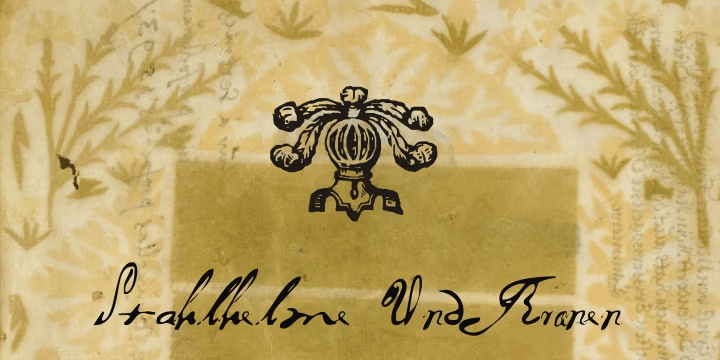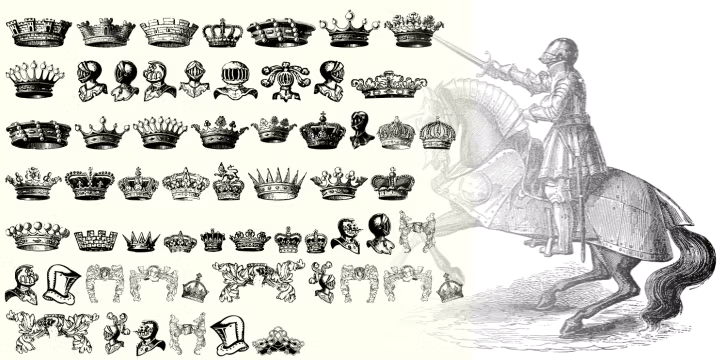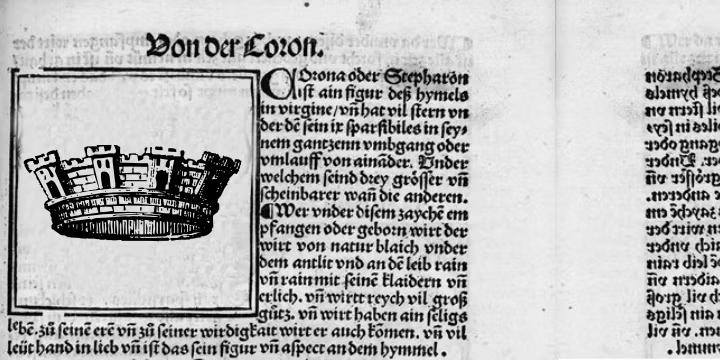
Stahlhelme und Kronen
Font Family by Intellecta Design
Stahlhelme und Kronen images in this dingbat font represents authentic ancient heraldry devices, like helms and crowns.